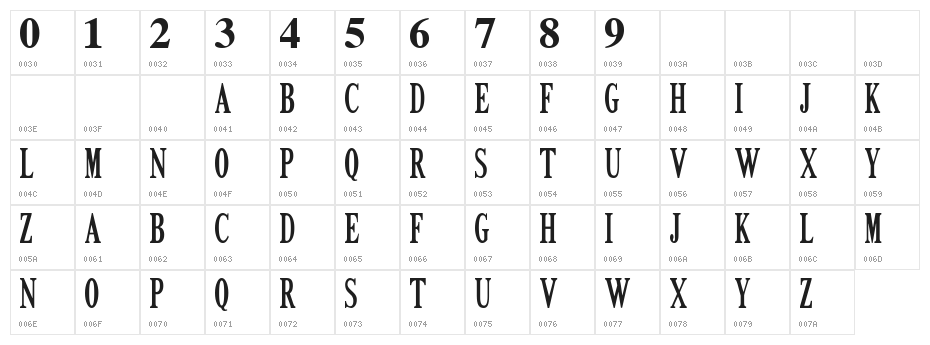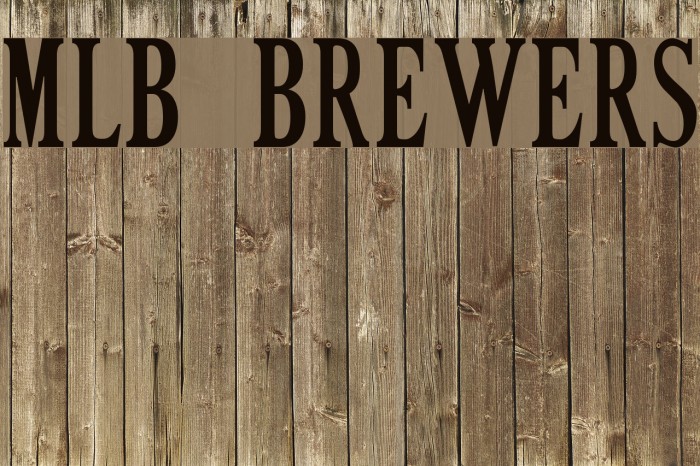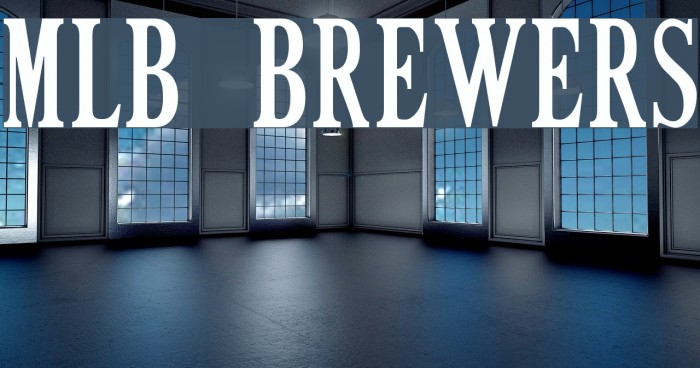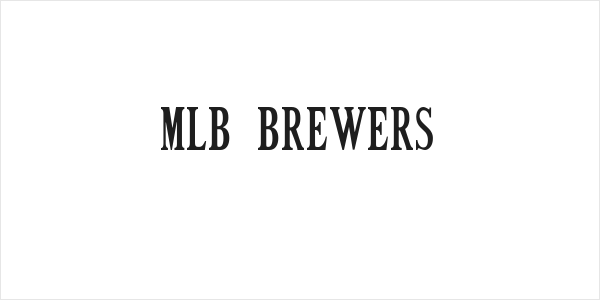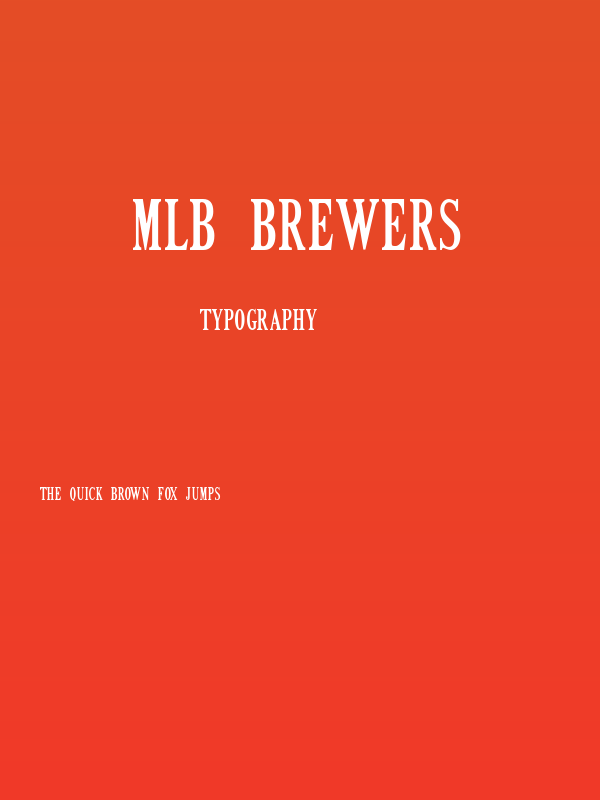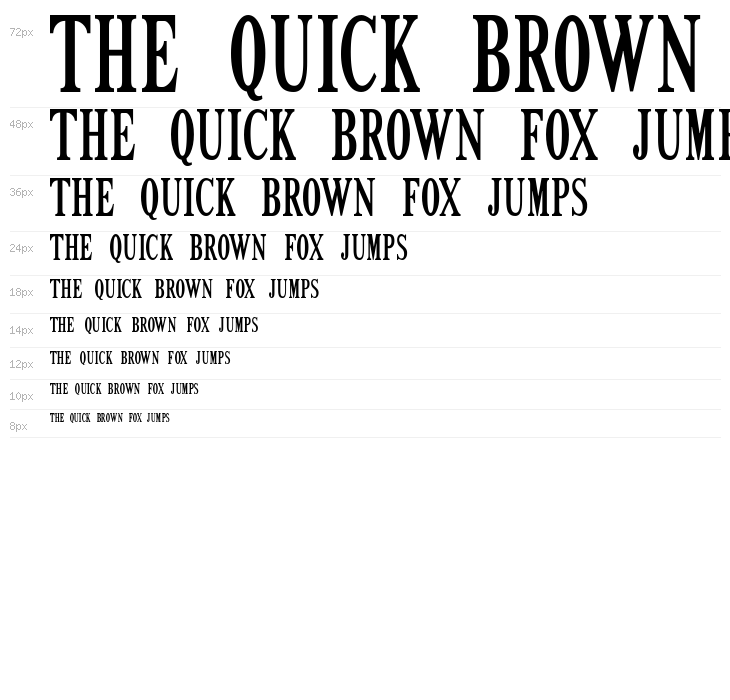
MLB Brewers Font
MLB Brewers Description
This font features a bold and commanding presence with its strong serif design. The uppercase letters are tall and slightly condensed, giving a sense of authority and tradition. The lowercase letters maintain a consistent style, complementing the uppercase with a slightly more rounded appearance. The numerals are robust and clear, ensuring readability. The overall design is reminiscent of classic serif fonts, with a modern twist that makes it suitable for both traditional and contemporary applications. The font's boldness and clarity make it ideal for headlines and titles, where impact is essential.